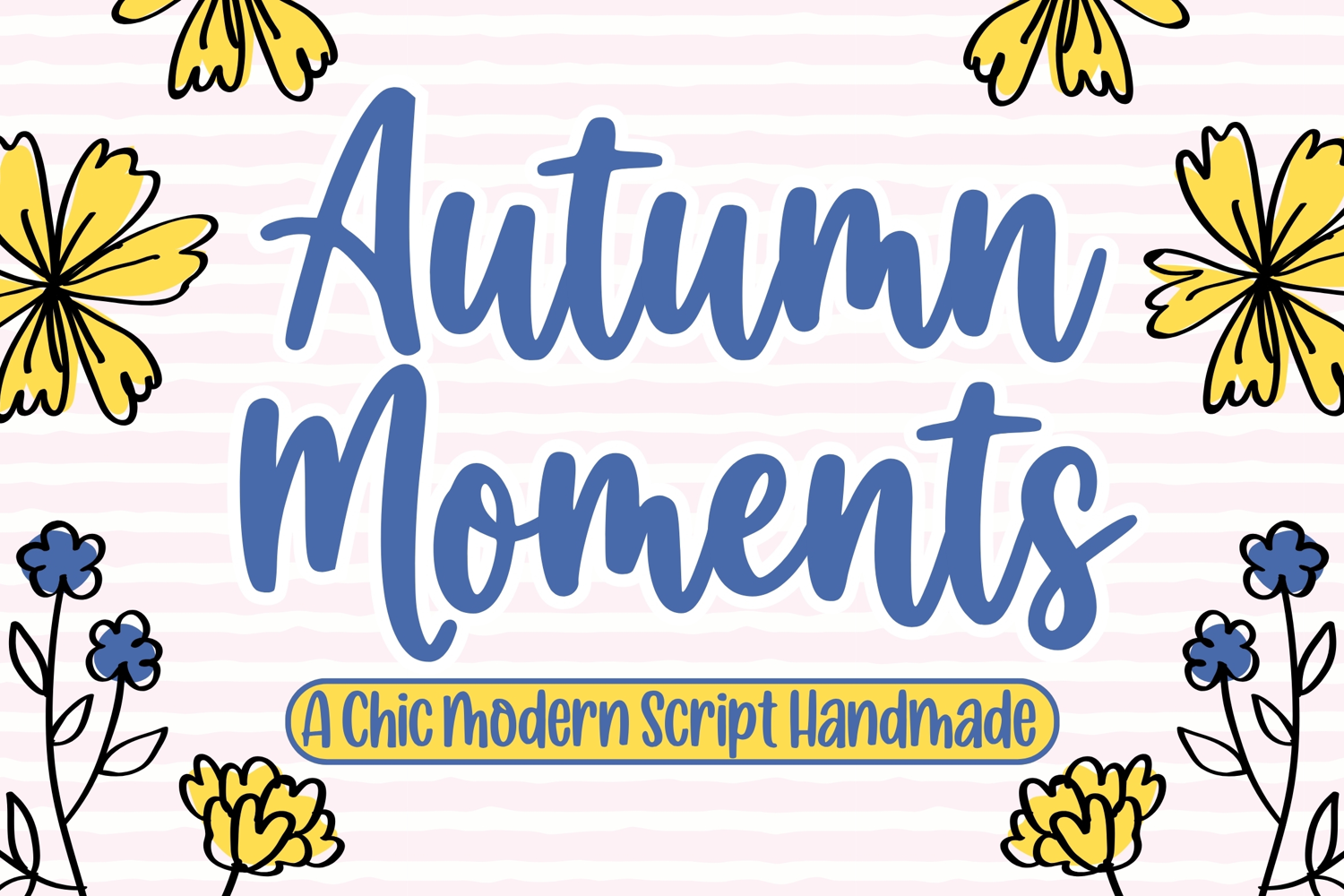
Autumn Moment is a charming and elegant script font inspired by the warm, romantic feeling of autumn. Its flowing handwritten strokes, natural letter connections, and graceful curves create a artistic character.
Perfect for branding, wedding invitations, greeting cards, logos, packaging, quotes, social media designs, and feminine lifestyle projects.
With its warm and effortless handwritten appearance, Autumn Moment brings a soft, nostalgic, and sophisticated touch to every design.